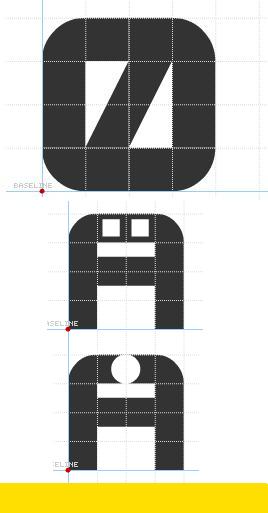
:)
Interesting diacritics! :-)
Have you tried a Q with a vertical tail?
Yeah, I did, but as far as I've restricted myself to have nothing under the bottom line, a "tail" like that does not look very good, too much as an "A"
But nevertheless, thank you for your pleasant comment!
Just rotate that "Q" right :D.
I love this king of classic font... you bring your own twist in it, that's cool
Your diatrics are very originals :)
I play with your font, it was fun. I just send you some suggestions ;)
Thank you for your comments!
@Neoqueto: Good suggestion, but I'm happy with the "Q" as it is. ;)
@Upixel: Hey, nice! I didn't try many alternatives, but now I see that there are better solutions as I supposed.
Used No.1 and 2 and did something nearly similar to 3, but "couldn't" use yours because of the composition ;)